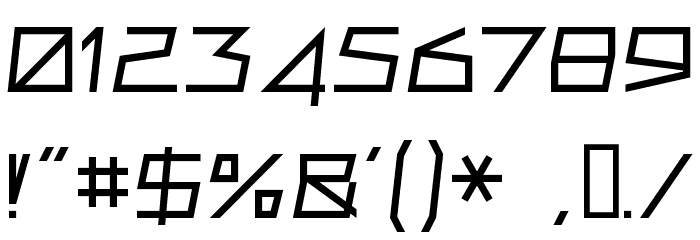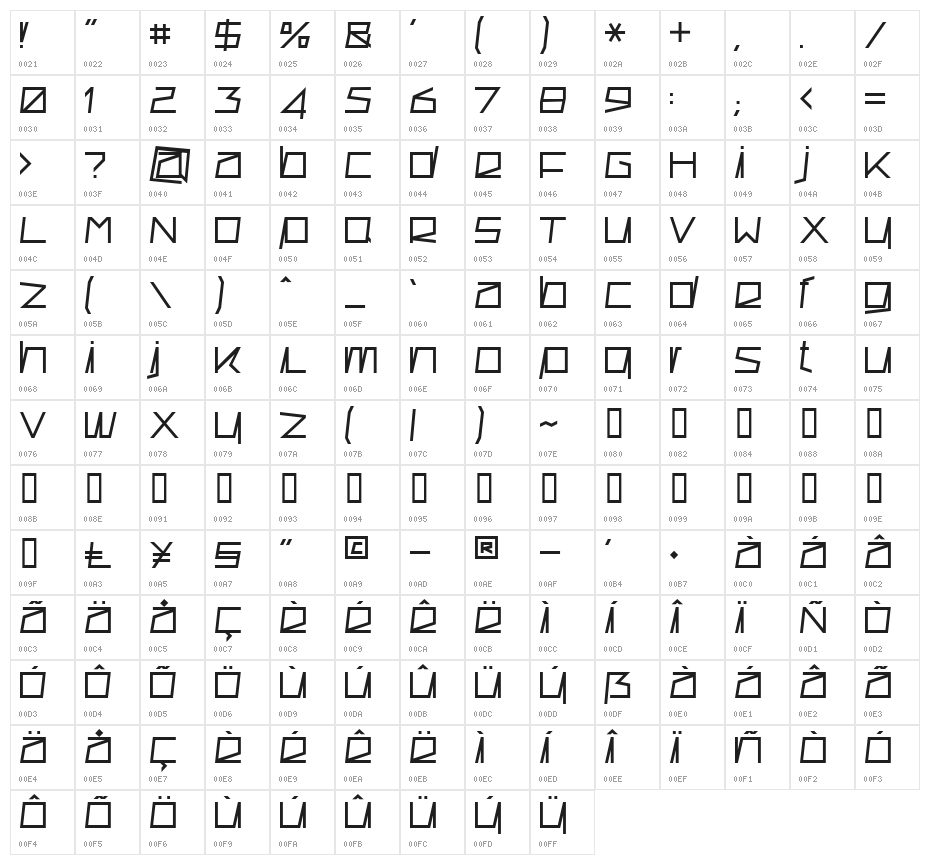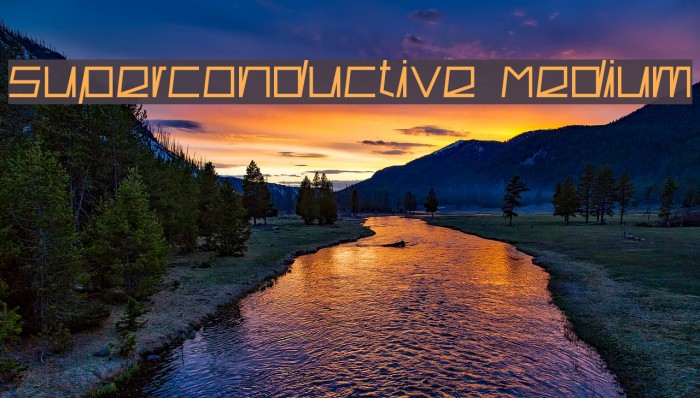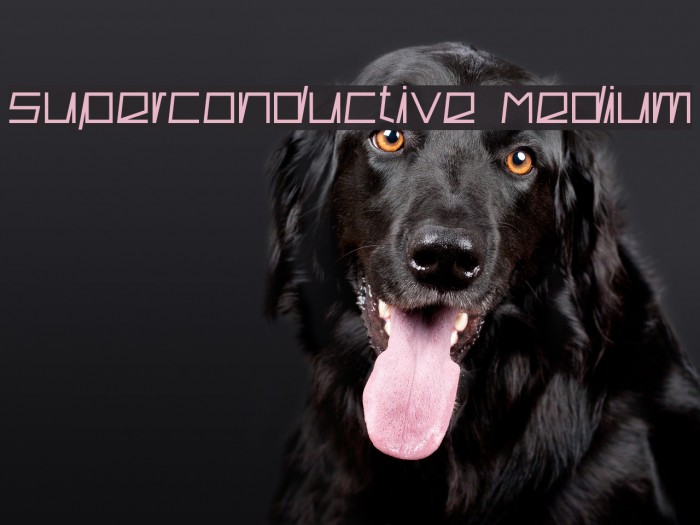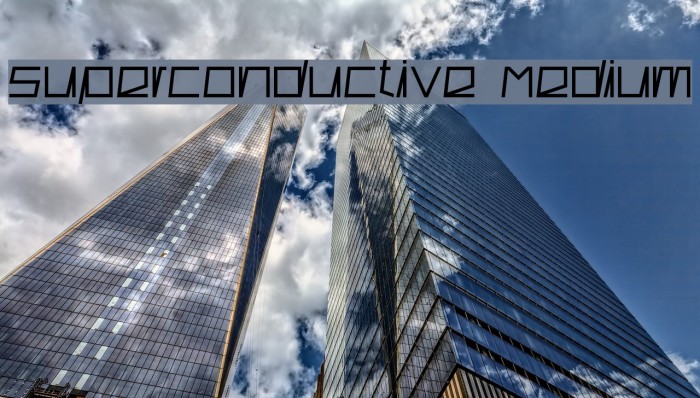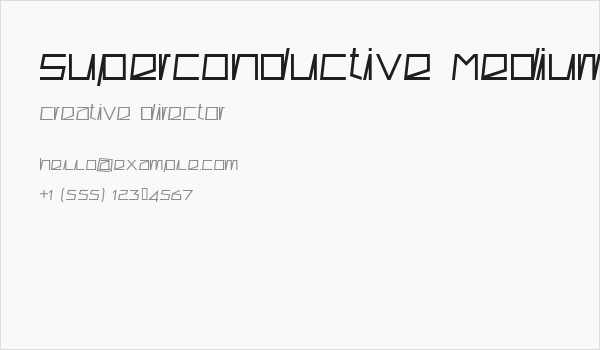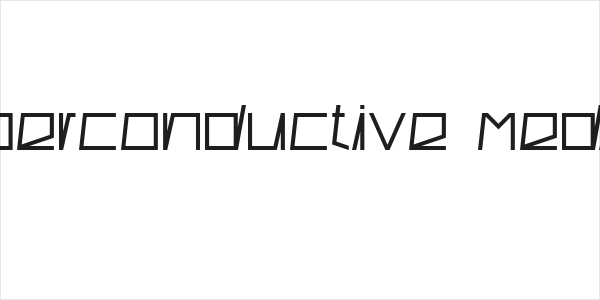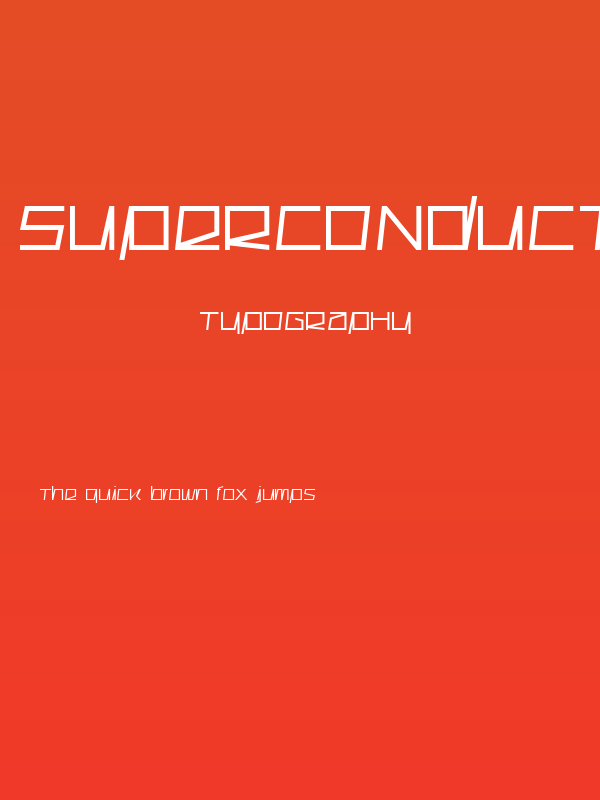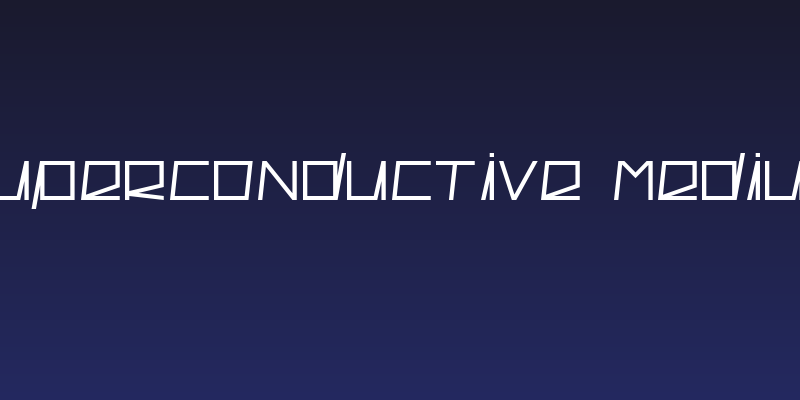
Superconductive Medium Font
Superconductive Medium Description
This font features a futuristic and angular design, characterized by sharp edges and geometric shapes. The uppercase and lowercase letters share a consistent style, with a unique slant that gives a sense of motion and dynamism. The numerals and special characters maintain this angular aesthetic, ensuring a cohesive look across all glyphs. The font's distinct style makes it stand out, offering a modern and edgy appearance suitable for various creative applications.